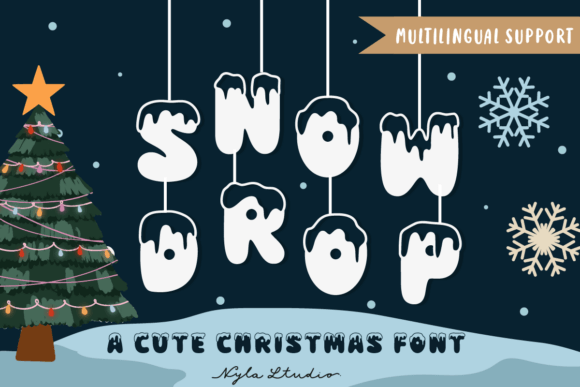
Snowdrop Font: A Cute Christmas Font for Your Holiday Projects
Are you looking for a font that captures the magic of Christmas? Look no further than the Snowdrop Font! This adorable font is perfect for adding a touch of holiday cheer to your circuit projects, shirts, retro designs, Christmas invitations, mugs, stickers, playful quotes, posters, logos, greeting cards, packaging, and illustrations.
What Makes Snowdrop Font So Special?
- Cute Melting Snow Decorations: The Snowdrop Font features melting snow decorations that add a playful touch to your designs.
- Perfect for Christmas Projects: Whether you’re creating Christmas invitations, holiday posters, or festive packaging, this font is sure to get you in the holiday spirit.
- Retro Design Friendly: The Snowdrop Font has a fun, retro vibe that’s perfect for adding a nostalgic touch to your designs.
- Versatile: Use this font for a wide range of projects, from circuit projects to stickers, mugs, and more!
10 Creative Ways to Use Snowdrop Font
- Circuit Projects: Add a touch of holiday cheer to your circuit projects with the Snowdrop Font.
- Shirts and Apparel: Create festive holiday shirts and apparel with this adorable font.
- Christmas Invitations: Make your Christmas invitations stand out with the Snowdrop Font.
- Mugs and Drinkware: Add a playful touch to your mugs and drinkware with this fun font.
- Stickers and Labels: Use the Snowdrop Font to create festive stickers and labels for your holiday gifts.
- Playful Quotes: Add a touch of holiday humor to your playful quotes with this cute font.
- Posters and Flyers: Create eye-catching holiday posters and flyers with the Snowdrop Font.
- Logos and Branding: Use this font to create a festive logo or branding for your holiday business or product.
- Greeting Cards: Make your holiday greeting cards extra special with the Snowdrop Font.
- Packaging and Illustrations: Add a touch of holiday magic to your packaging and illustrations with this adorable font.
Design Tips for Using Snowdrop Font
Here are a few design tips to keep in mind when using the Snowdrop Font:
- Pair with Other Fonts: Try pairing the Snowdrop Font with other fonts to create a unique and eye-catching design.
- Experiment with Colors: Don’t be afraid to experiment with different colors and textures to add depth and interest to your design.
- Keep it Simple: Remember to keep your design simple and easy to read, especially when using a font with decorative elements like the Snowdrop Font.
The Benefits of Using Snowdrop Font
Here are just a few benefits of using the Snowdrop Font in your holiday projects:
- Adds Holiday Cheer: The Snowdrop Font is sure to add a touch of holiday cheer to your designs.
- Increases Engagement: The playful and festive nature of this font is sure to increase engagement and grab the attention of your audience.
- Versatile: Use this font for a wide range of projects, from Christmas invitations to holiday posters and more!
In conclusion, the Snowdrop Font is a cute and versatile font that’s perfect for adding a touch of holiday cheer to your designs. With its melting snow decorations and retro vibe, this font is sure to be a hit with your audience. So why wait? Download the Snowdrop Font today and start creating your own festive holiday projects!